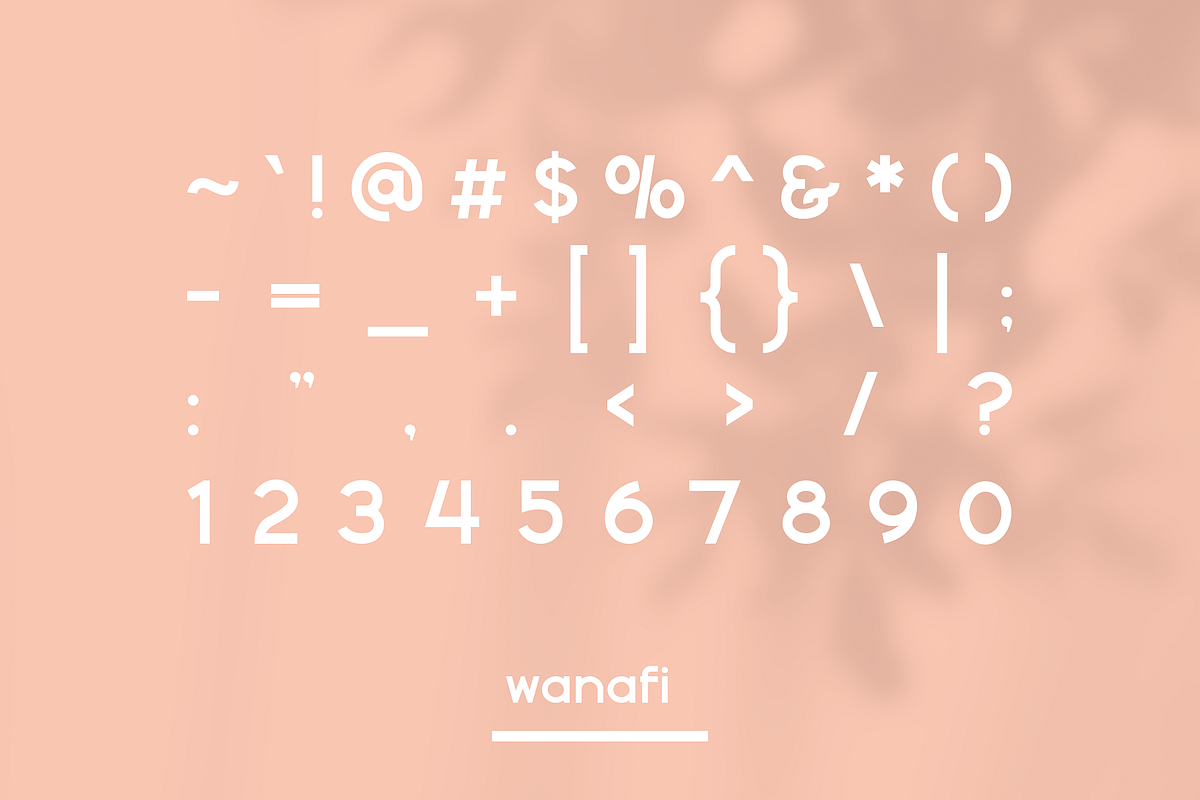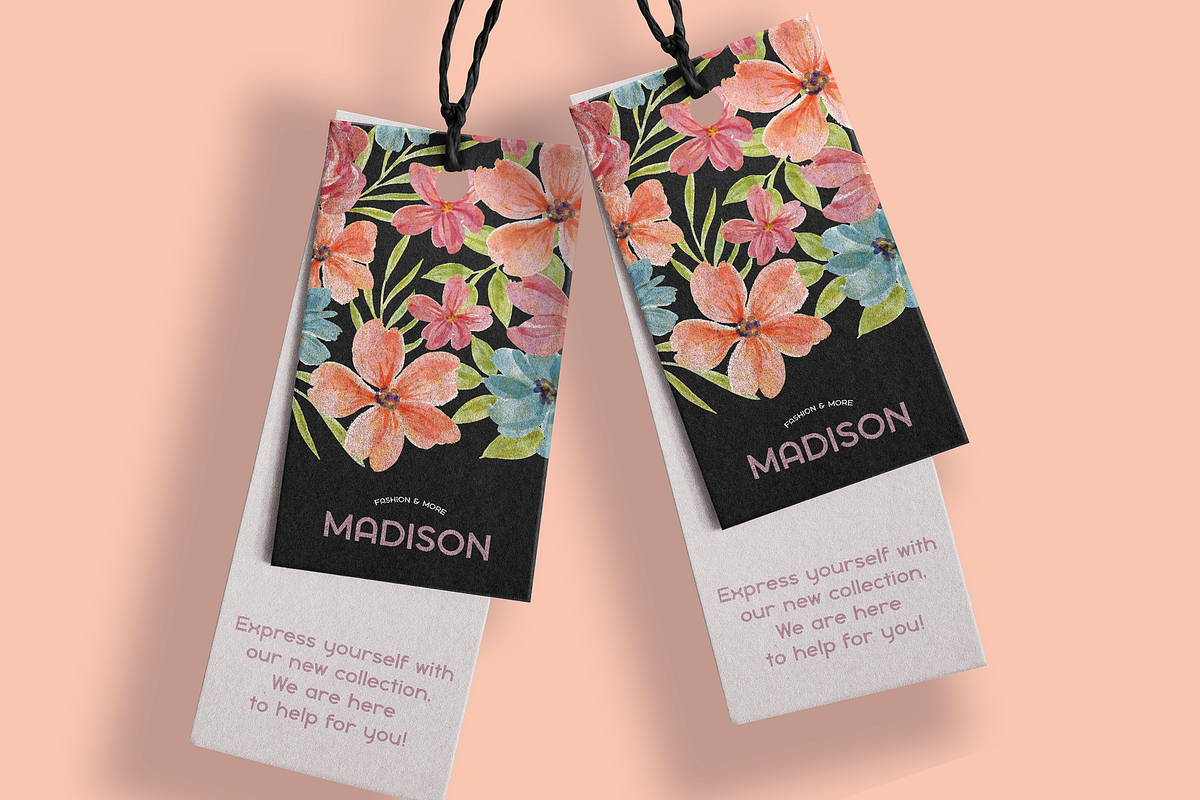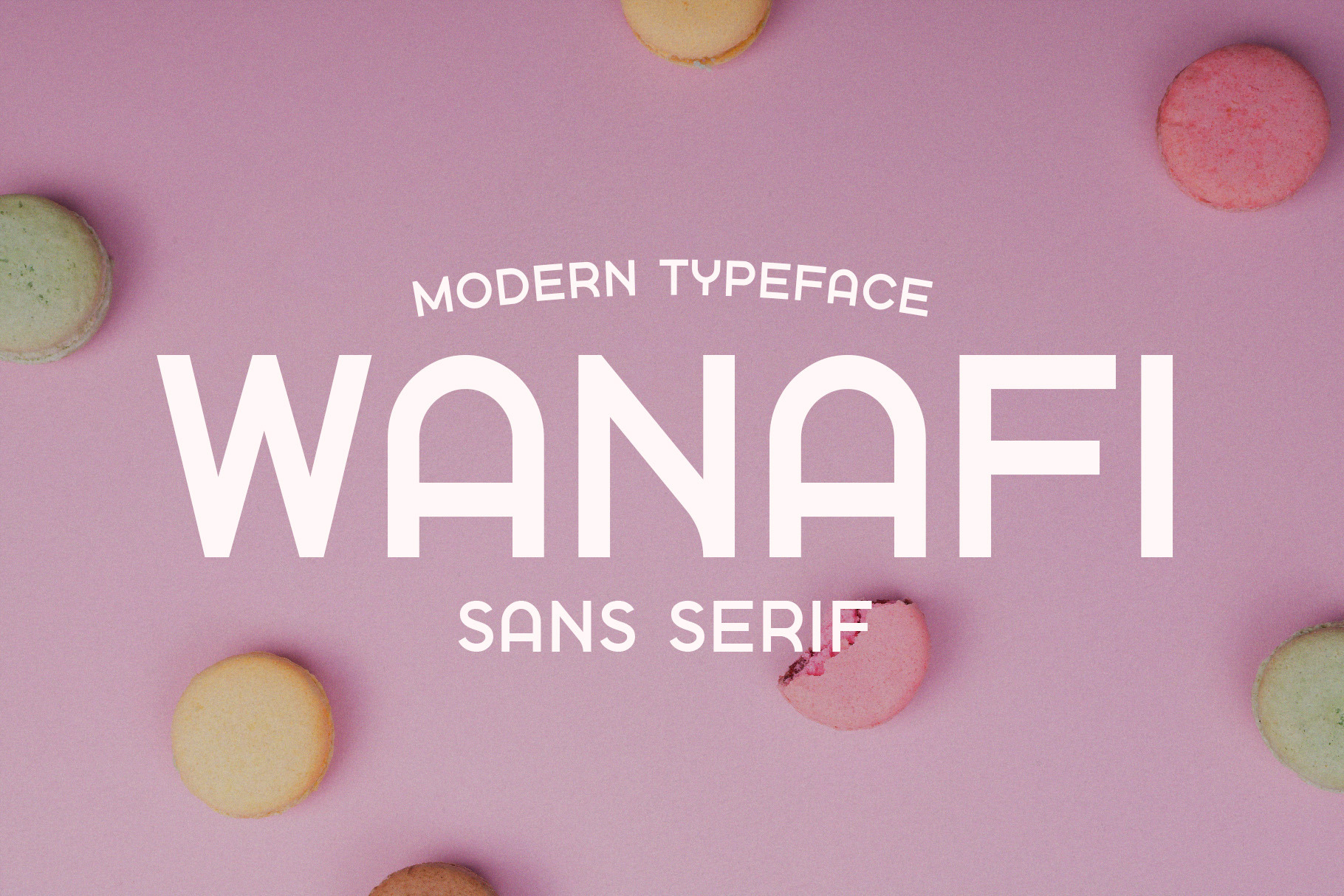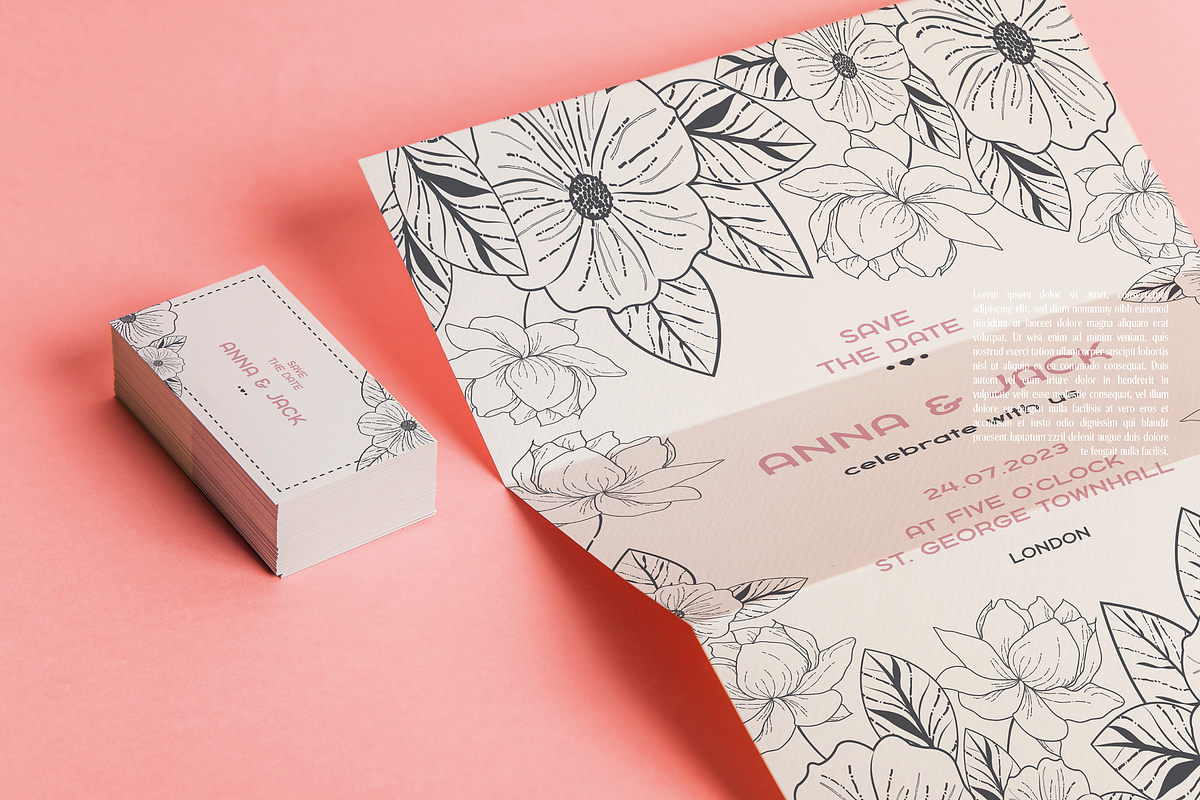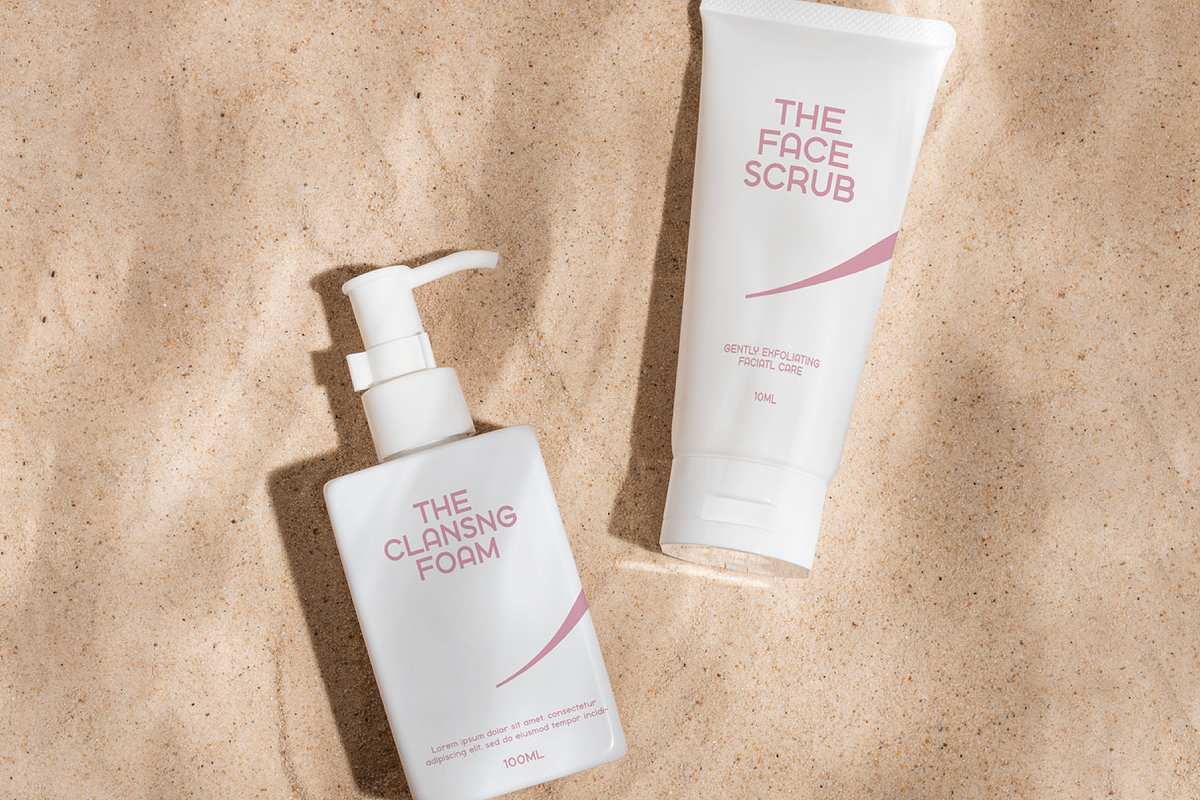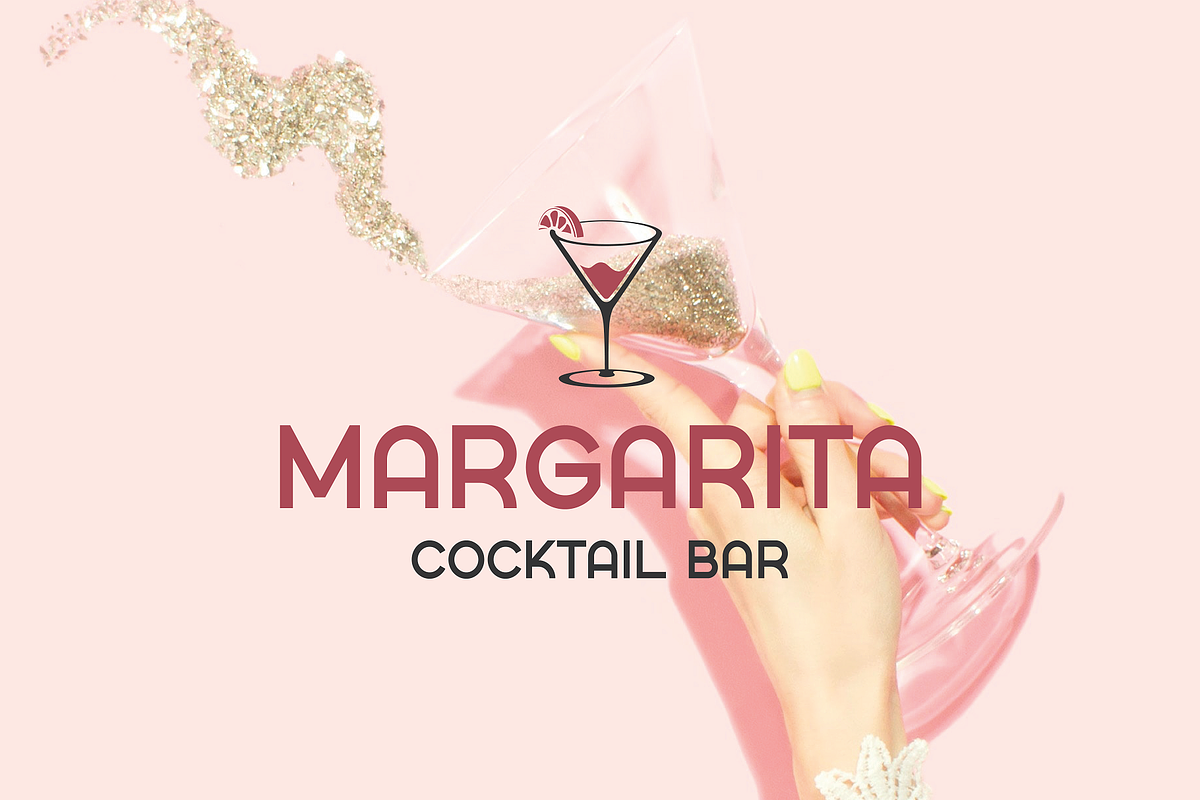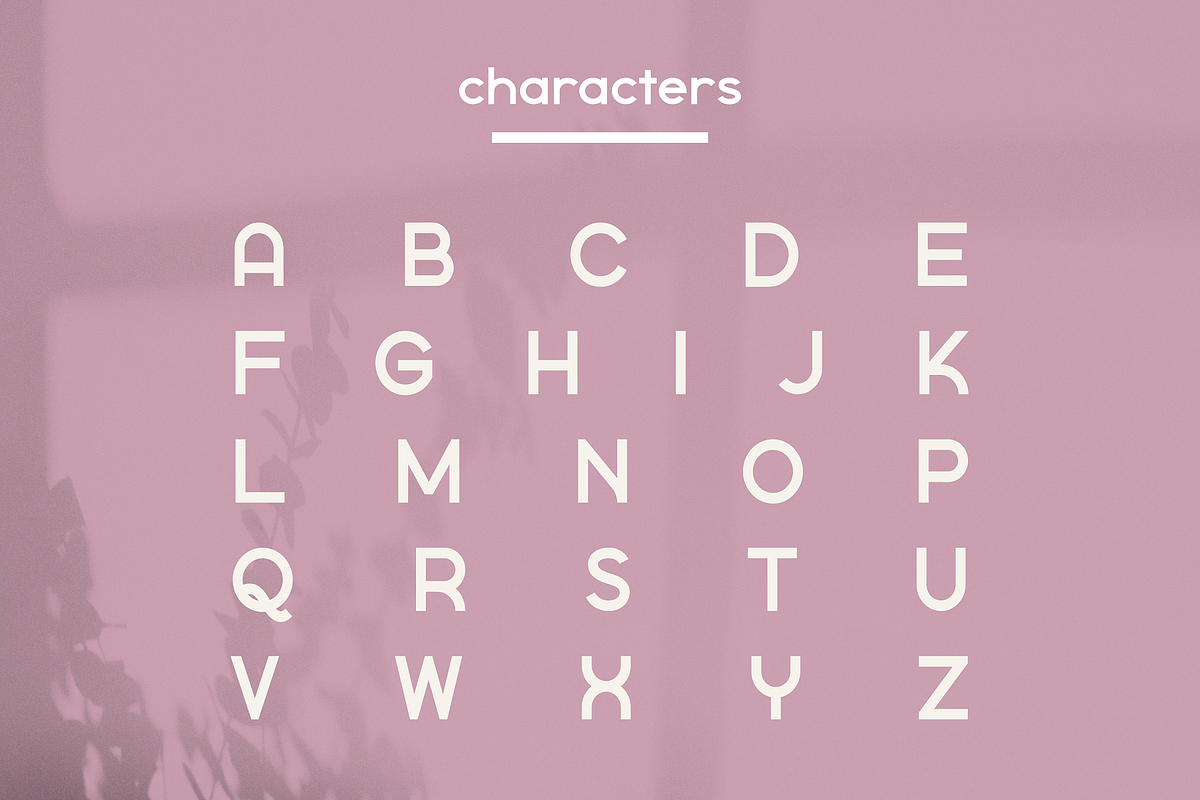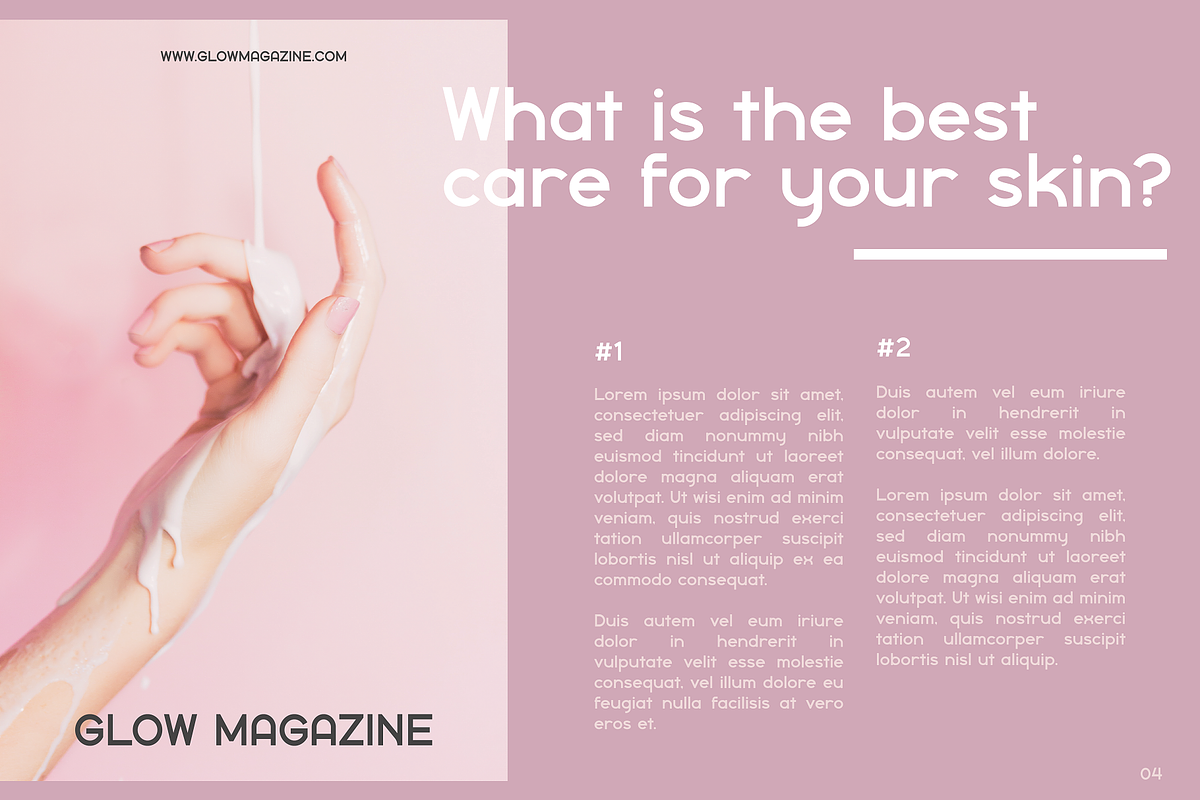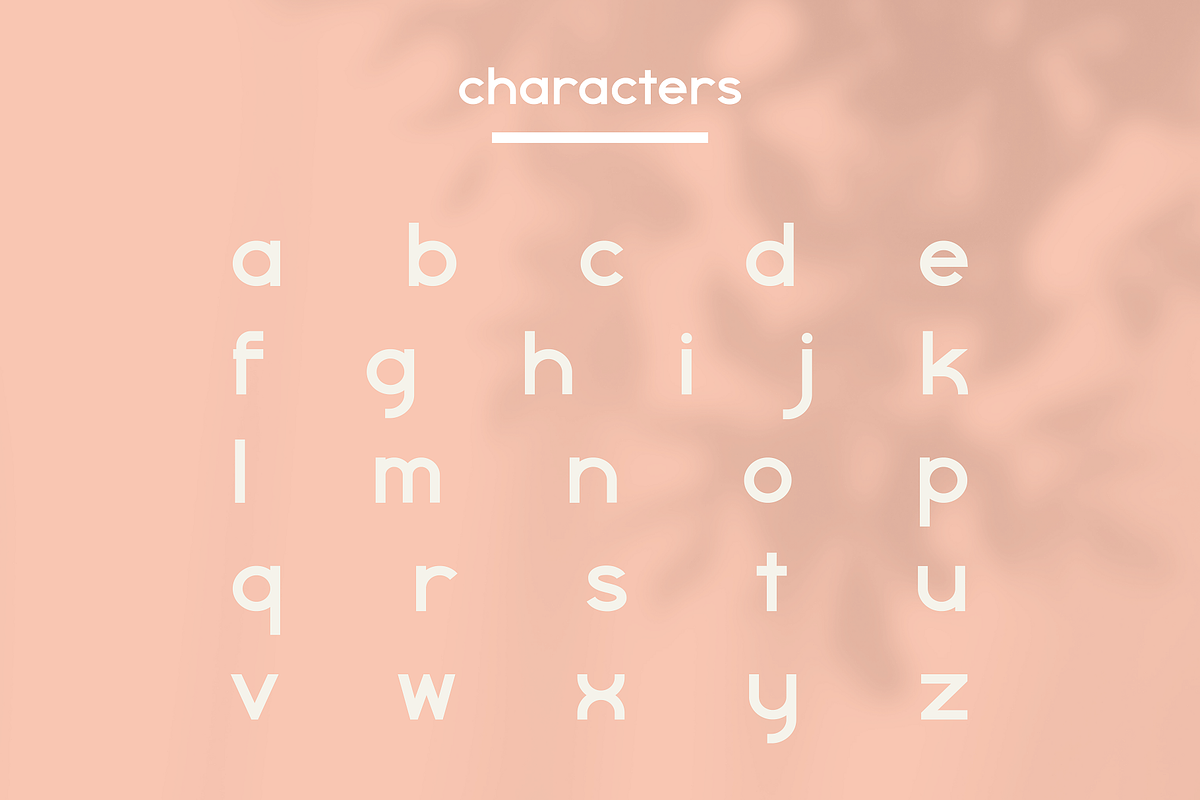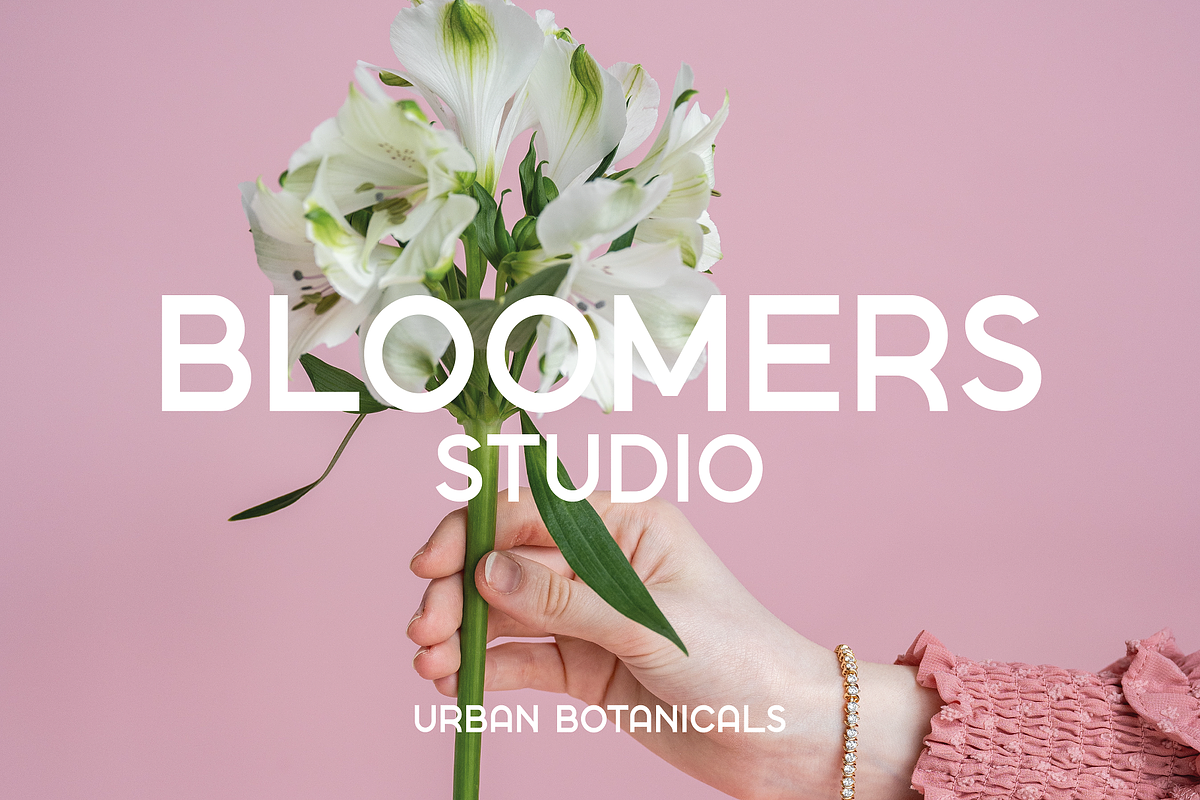
Wanafi - Modern Sans Serif Font
Wanafi is an elegant font that blends modern elegance with vintage charm. Its clean, simple lines give it a timeless look that will never go out of style. Its graceful curves provide a unique visual aesthetic that adds a touch of luxury to any design.
Wanafi is perfect for any project that requires a modern yet timeless aesthetic and can be used to create a variety of designs, from logos and branding to invitations and other creative projects. With its modern, beautiful, and clean look, Wanafi is sure to add a touch of elegance and sophistication to any project.